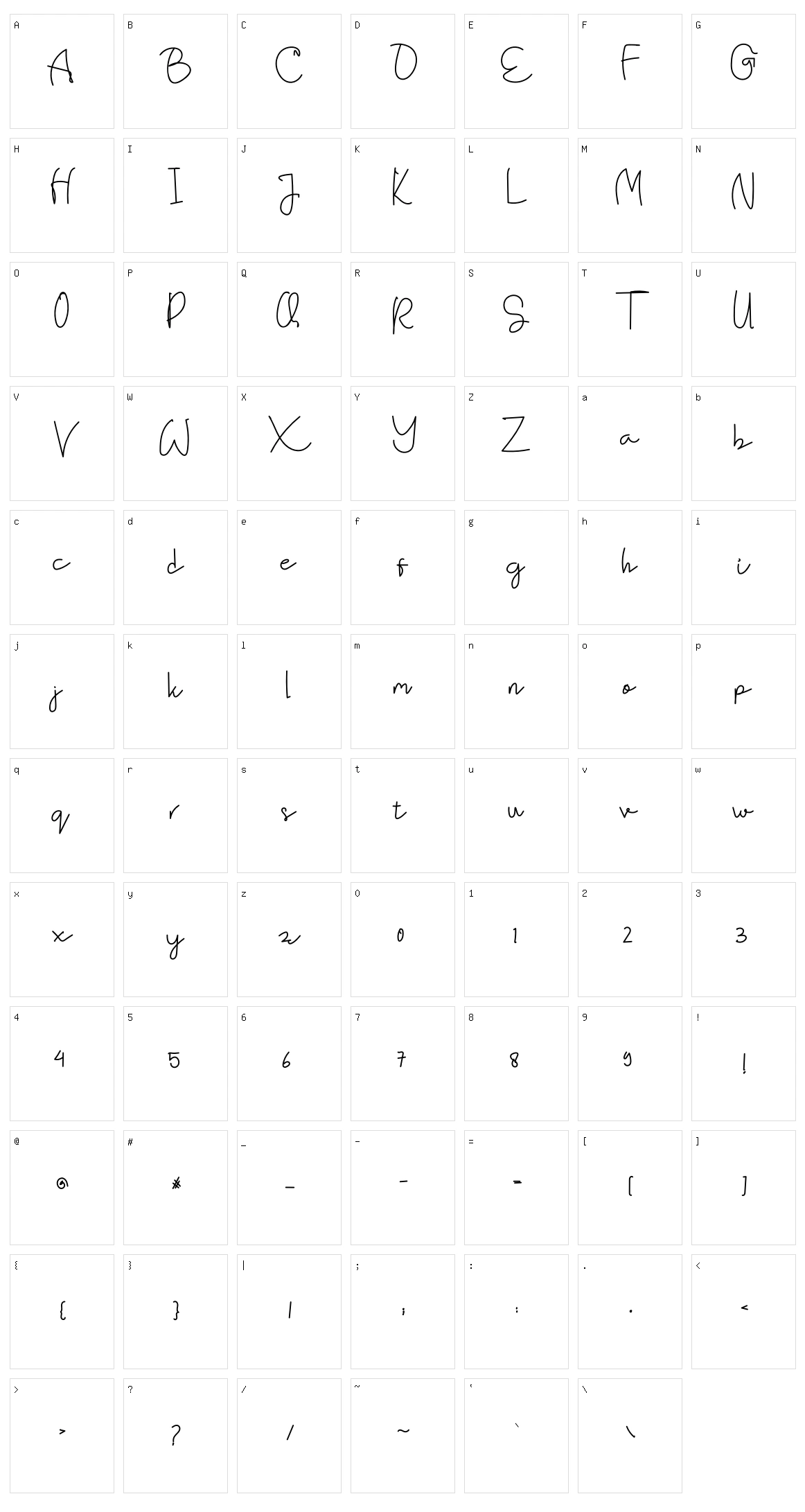
The free font Juwita Night is carefully designed by twinletter, showcasing a thoughtful balance of creativity and usability and falls under the Script font style. When you download the ZIP file, it contains only 157.57 KB of font files, making it lightweight and quick to download. Please review the license details below to understand permitted usage and distribution rights. If license information is not available, we recommend using this font for personal projects only or contacting the author directly for commercial usage permissions.